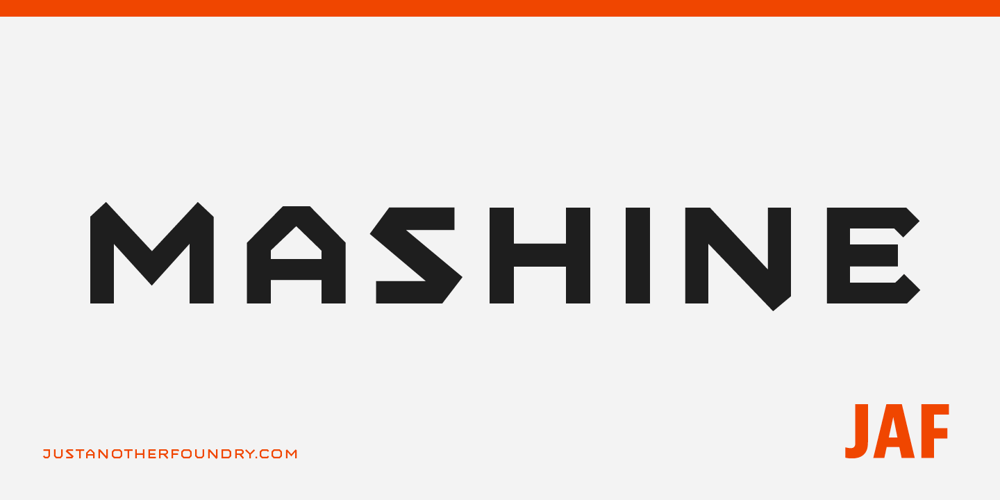
JAF Mashine Font Family was designed by Tim Ahrens and published by Just Another Foundry. JAF Mashine contains 12 styles and family package options. Although at first sight Mashine is a strict, “non-design” typeface, this display font is not as geometric as it seems. The use of serif-like terminals and unusual joints gives the design a unique look. This all-caps font provides stylistic alternates for most letters. If you type larger amounts of texts you should activate the Contextual Alternates OpenType feature to have the variants replaced automatically. By choosing best fitting letter pairs intelligently a fluid text composition is achieved. The fonts are provided in OpenType format. Each font contains 470 glyphs. Technically, they follow the Adobe Pro fonts and provide the same glyph set and OpenType functionality.